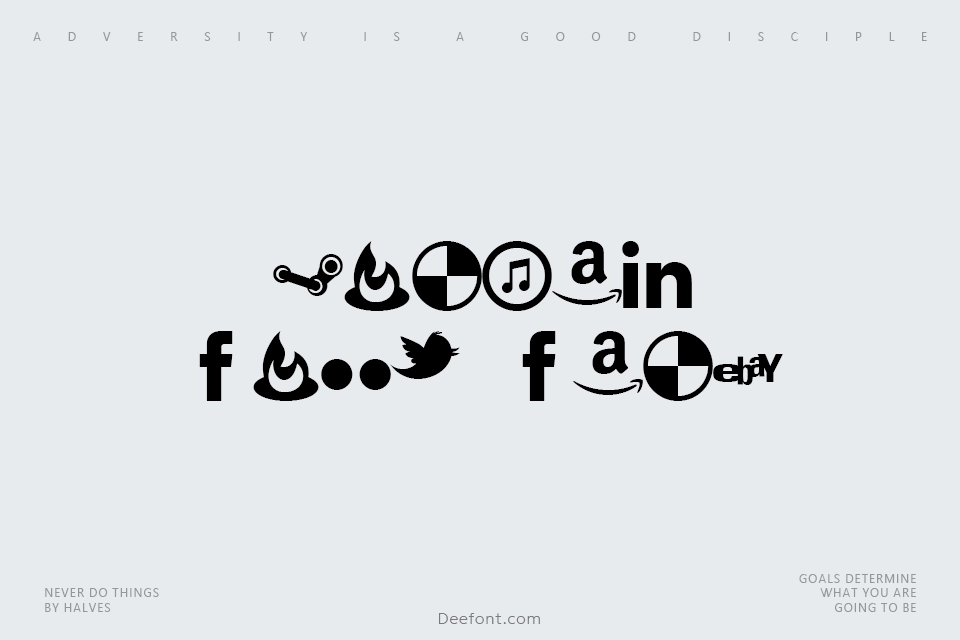
Social Font Face Font
Social Font Face is a versatile dingbats typeface designed by Ted Slesinski, offering 184 symbols and decorative elements perfect for creating social media icons and logos. With its clean execution and extensive glyph collection, this font enables designers to quickly produce unique visual identities. Ideal for branding projects, web design, and creative illustrations that require distinctive symbolic communication without traditional letterforms.